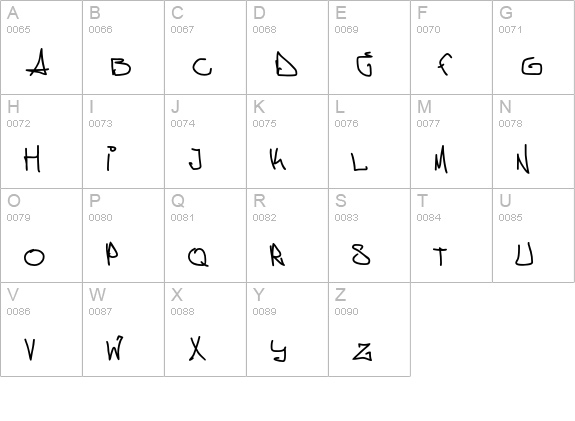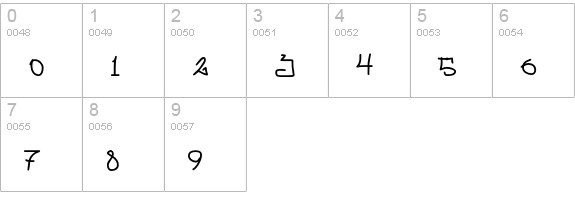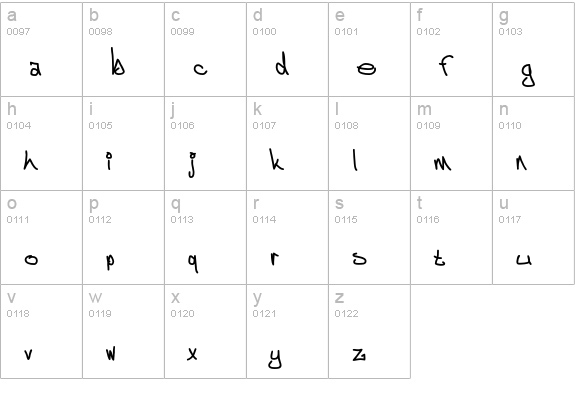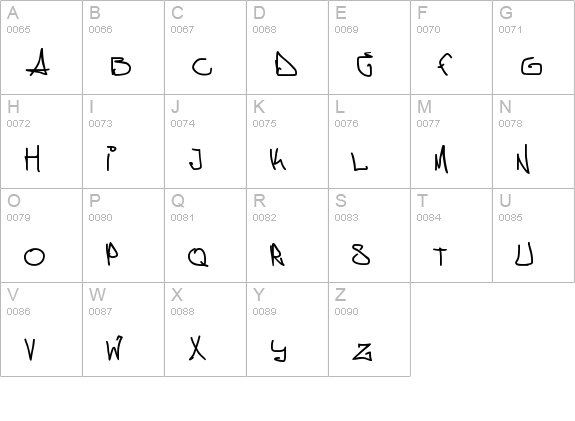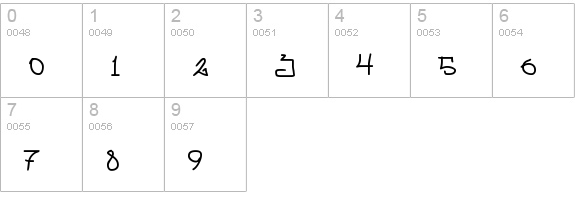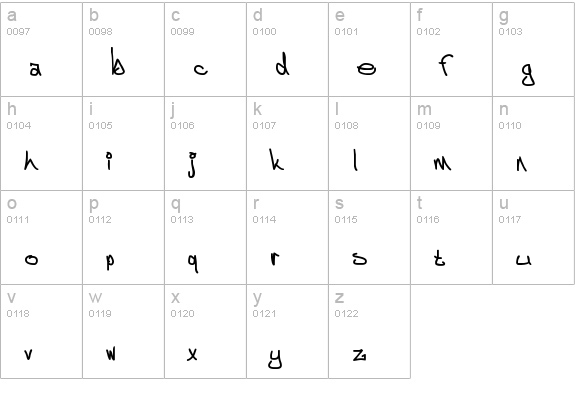
Aggstock Font Details
Aggstock font is a beautifully crafted typeface that exudes a sense of modern sophistication and elegance. Its sleek lines and stylish curves make it perfect for a wide range of design projects, from branding to editorial design. The font's versatile nature allows it to be used in both bold headlines and delicate body text, ensuring that your message always stands out. What sets Aggstock font apart is not only its aesthetic appeal, but also its accessibility. This stunning typeface is available for free download at FontsMarket.com, making it a fantastic choice for designers looking to add a touch of class to their work without breaking the bank. Whether you're working on a personal project or a client commission, Aggstock font is sure to elevate your design to the next level. Download it today and see for yourself the impact this incredible font can have on your creative endeavors.